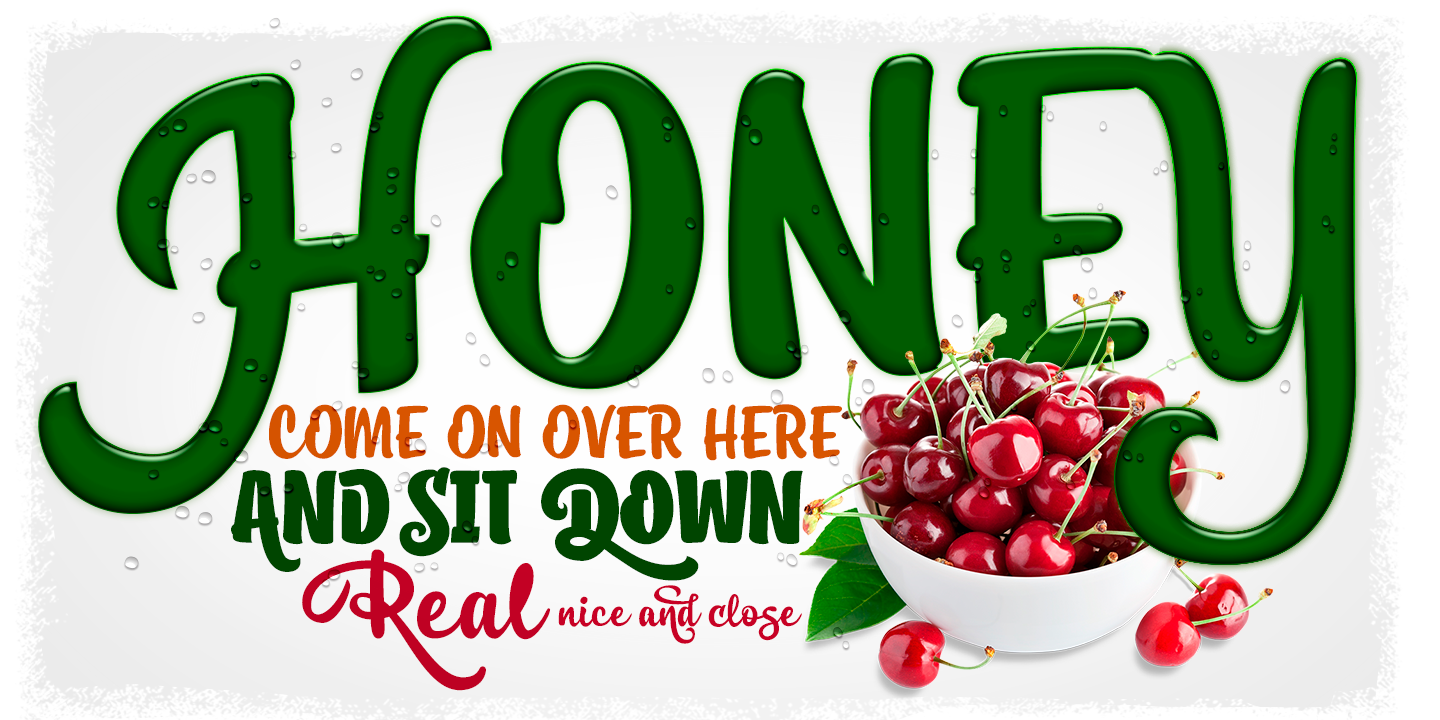
Cherrypie Font is perfect for homestyle bakery branding, vintage diner menus, country kitchen restaurants, farm-to-table cafes, retro dessert shops, family recipe collections, homemade pie competitions, and nostalgic comfort food establishments. This sweet typeface brings homemade warmth and old-fashioned dessert charm to any design project celebrating traditional baking, family recipes, and the comfort of home-style cooking.
What makes Cherrypie Font exciting is its delightful capture of homemade sweetness combined with nostalgic kitchen charm that perfectly embodies the warmth and comfort of grandmother's kitchen and traditional family baking traditions. The cozy letterforms feature homestyle proportions and sweet details that create an unmistakably comforting appearance. Each character radiates the warmth of fresh-baked goods, making it ideal for brands that celebrate family traditions, homemade quality, and the simple pleasure of traditional comfort foods.
The Cherrypie Font family typically includes regular and bold weights with complete uppercase and lowercase letters, numbers, punctuation marks, and baking-themed special characters. Many versions feature additional homestyle decorative elements, kitchen motifs, and traditional baking symbols that enhance the comfort food aesthetic and provide creative flexibility for culinary and hospitality design applications.
Whether you're developing homestyle food brands or creating traditional recipe materials, Cherrypie Font Free Download offers unlimited potential for comfort food projects. This heartwarming typography choice transforms ordinary text into homestyle experiences that resonate with audiences seeking authentic comfort food and traditional family values. The font's sweet nature ensures exceptional appeal across various culinary applications while maintaining its distinctive homemade character that makes every design project feel like a visit to grandmother's kitchen where love is the secret ingredient in every recipe.